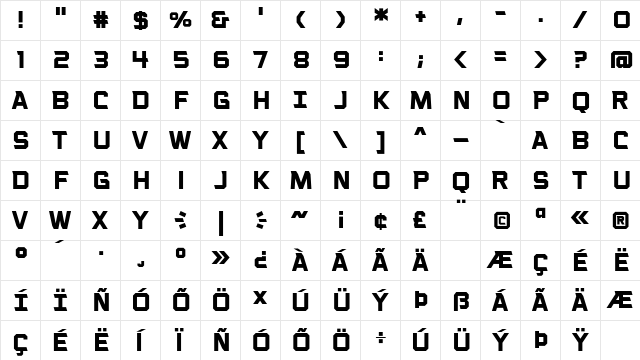
Voice Activated Caps BB Bold
| Foundry | Nate Piekos. Blambot.com |
| Designer | Nate Piekos |
Design Context for Voice Activated Caps BB Typeface
Voice Activated Caps BB offers clean, dependable letterforms without strong stylistic allegiance, making it a practical choice for designers who need flexibility. The heavy weight commands attention and anchors typographic hierarchies.